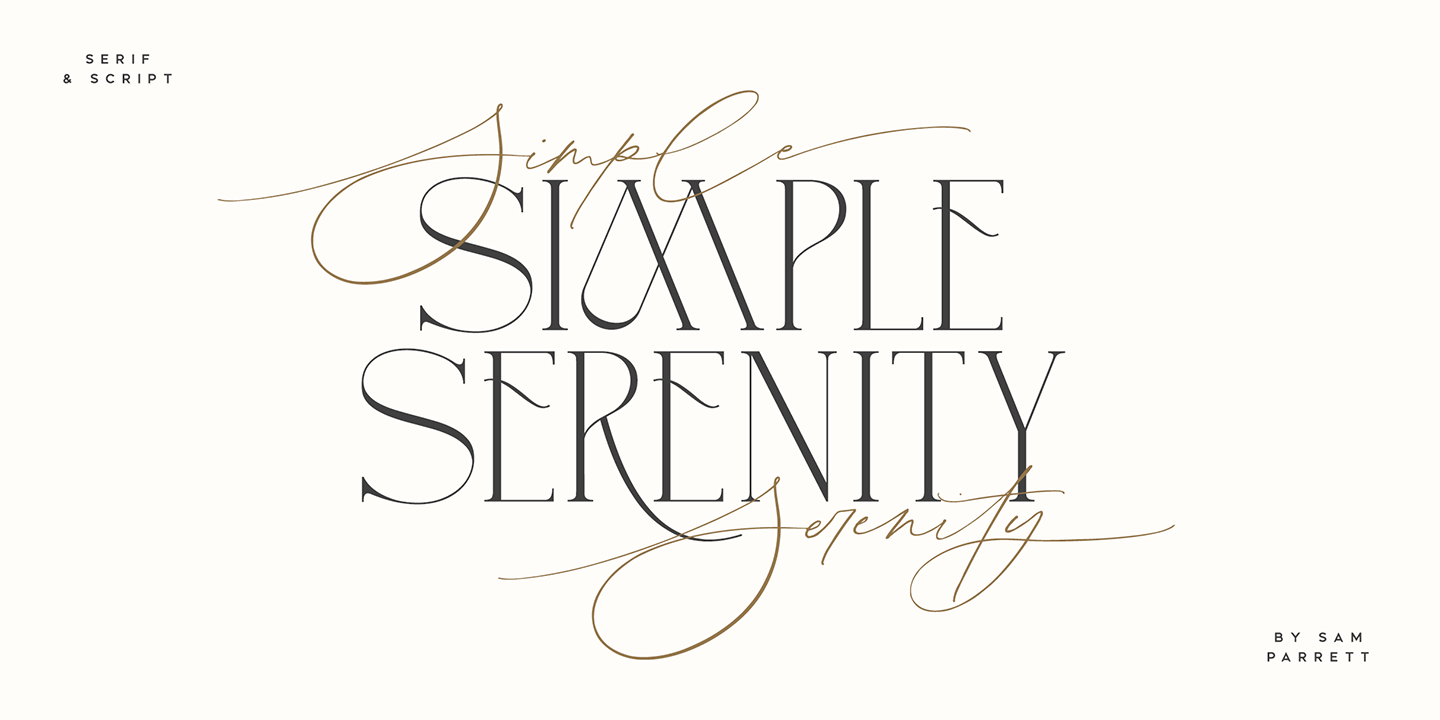
Simple Serenity Font is perfect for mindfulness app interfaces, meditation center branding, wellness spa signage, peaceful retreat materials, yoga studio designs, calming healthcare communications, tranquil home decor packaging, serene lifestyle blogs, gentle therapy practice logos, and peaceful brand identities that require calming simplicity and tranquil elegance.
This font is exciting because it embodies the essence of peaceful tranquility and mindful simplicity with clean, harmonious letterforms that create an atmosphere of calm serenity and inner peace, perfect for brands seeking to communicate wellness and emotional balance. Simple Serenity Font features gentle curves and balanced proportions that reflect the mindful awareness and peaceful energy essential for wellness-focused designs and therapeutic communications.
Simple Serenity Font family includes Regular, Bold, Light, Calm, Peaceful, Zen, Mindful, and Tranquil versions, plus wellness symbols, peaceful ornaments, mindfulness icons, and serene design elements that enhance the tranquil aesthetic and provide comprehensive solutions for wellness and mindfulness applications.
For wellness and mindfulness design projects, Simple Serenity Font Free Download delivers unmatched calming presence and peaceful sophistication. The font's serene letterforms and tranquil character make it perfect for wellness centers, mindfulness apps, and therapeutic brands seeking to communicate peace, balance, and emotional well-being. Its calming design appeals to audiences seeking stress relief and peaceful experiences. The character set includes mindfulness symbols and wellness markers that reflect therapeutic industry standards. Professional designers appreciate its ability to convey both inner peace and professional quality while maintaining excellent readability across wellness marketing, mindfulness communications, and therapeutic branding materials, making it essential for brands that want to project the calming serenity and peaceful energy that defines exceptional wellness experiences and creates lasting tranquility for clients seeking emotional balance and mindful living in today's stressful world.